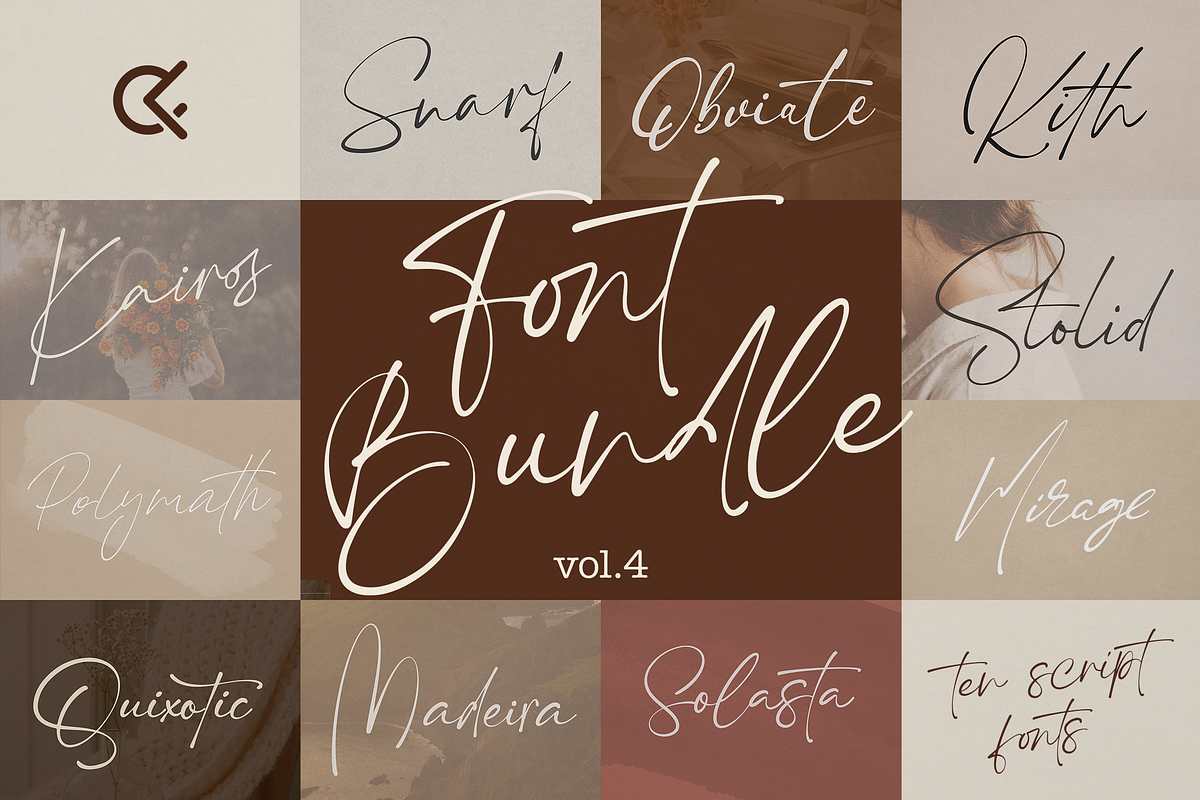
The Font Bundle Vol.4 - 10 Scripts Free Download is an exciting collection of 10 beautifully crafted script fonts, designed to bring elegance, creativity, and personality to your designs. This bundle includes a variety of styles, from flowing cursive to bold, modern scripts, making it perfect for creating logos, invitations, branding, posters, and more. Whether you’re designing for a wedding, a creative brand, or a personal project, these fonts will add a stylish, handwritten touch to your work.
Font Bundle Vol.4 - 10 Scripts Free Download is ideal for designers looking to add versatility and flair to their typography. Perfect for a range of creative projects, this bundle will elevate your designs with its wide variety of beautiful scripts. Download it today and infuse your work with the charm and elegance of these amazing scripts!